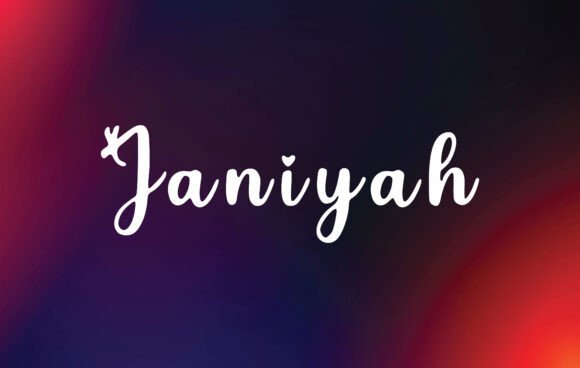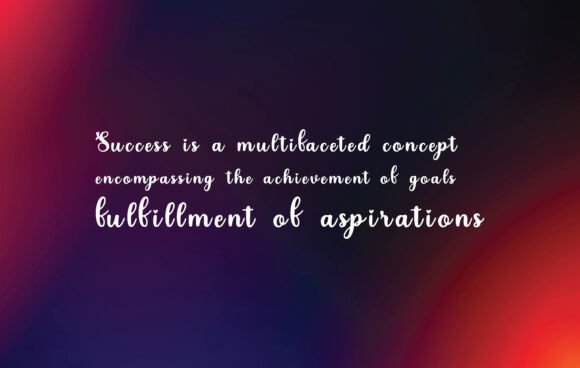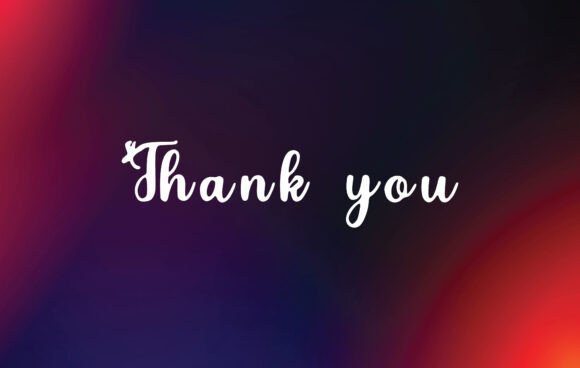
About the Janiyah Font
Discover the charm of Janiyah Font. This font is a perfect blend of modern aesthetics and classic appeal. Janiyah is a lovely and beautiful handwritten font.This font has the potential to take your creative ideas to the highest level.It is the best choice for creating eye catching logos, branding and quotes.
Janiyah’s elegant, yet slightly informal, handwritten style is ideally suited for projects requiring a touch of personality and warmth. It excels in headlines, short-form text such as quotes and taglines, and branding applications where a handcrafted feel is desired, including logos and packaging for boutique products or lifestyle brands. Avoid using Janiyah for body text or long paragraphs; its readability suffers at smaller sizes.
Pairing Janiyah effectively requires considering its inherent warmth. A clean sans-serif like Montserrat or Lato provides a strong contrast, grounding the script’s flourish. For a more playful feel, a rounded geometric sans-serif such as Futura or Circular works well. Alternatively, a classic serif like Garamond or Playfair Display can add a touch of sophistication.
Its core personality is best described as friendly and approachable, yet sophisticated. Brands focusing on handmade goods, artisanal products, or feminine aesthetics will find Janiyah particularly suitable. Conversely, projects requiring a highly formal or strictly minimalist aesthetic would be better served by other typefaces.